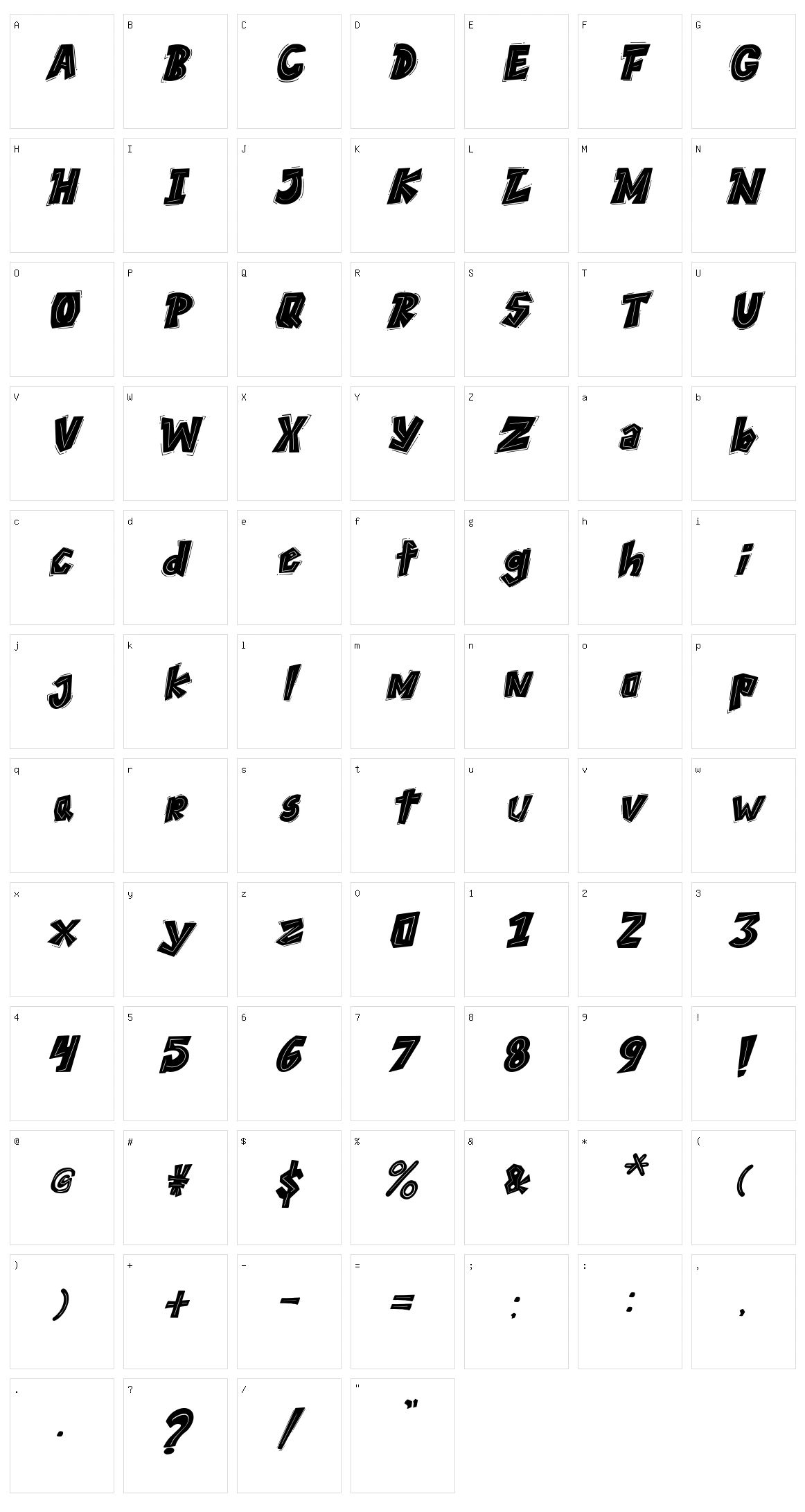
The free font Theygi is carefully designed by D&K Project, showcasing a thoughtful balance of creativity and usability and falls under the Cartoon font style. When you download the ZIP file, it contains only 614.56 KB of font files, making it lightweight and quick to download. Please review the license details below to understand permitted usage and distribution rights. If license information is not available, we recommend using this font for personal projects only or contacting the author directly for commercial usage permissions.